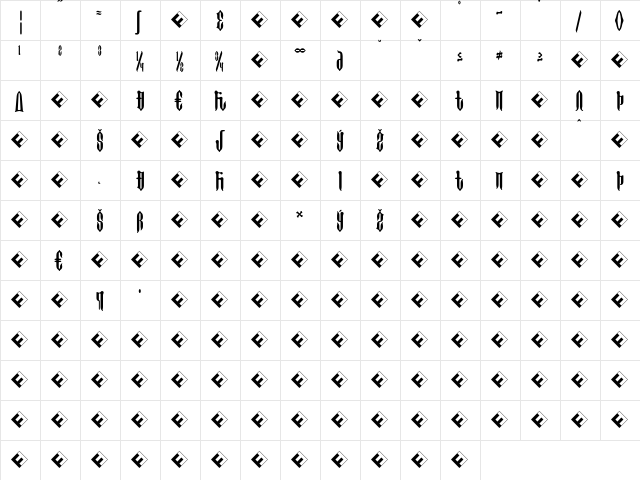
Imperial-BoneExp Regular
Design Context for Imperial-BoneExp Typeface
Imperial-BoneExp is a composed and adaptable typeface that performs quietly and consistently across a wide range of design contexts.